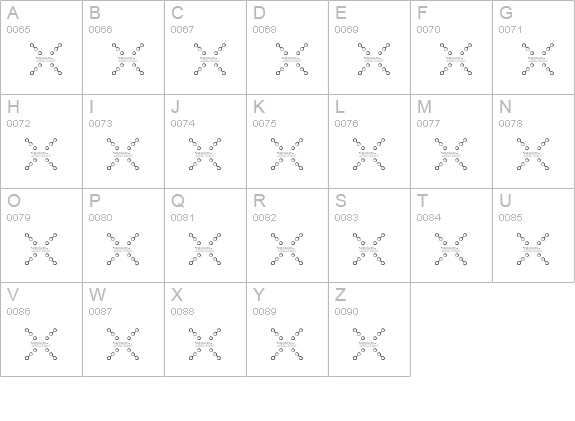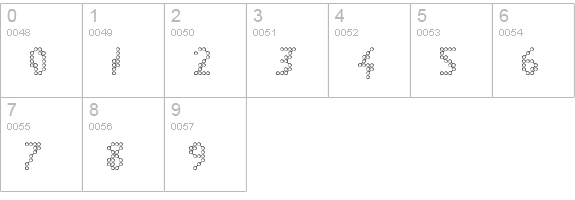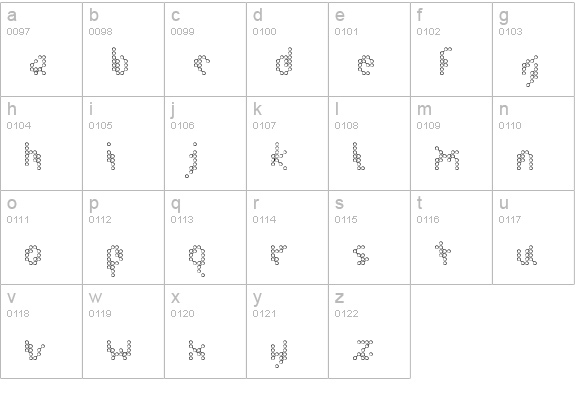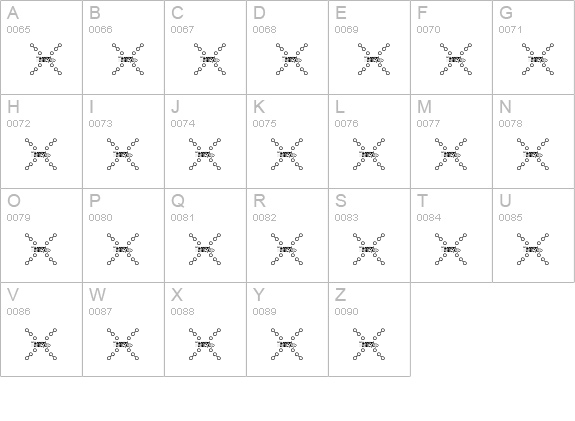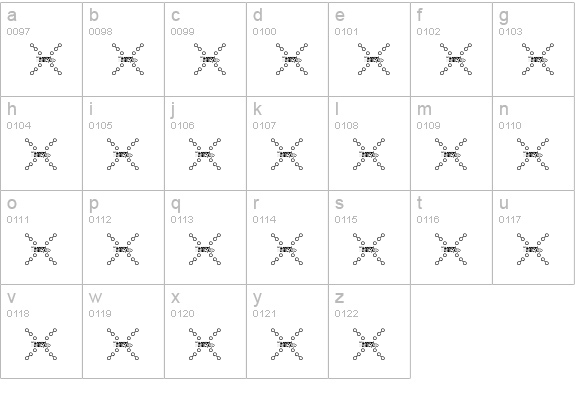
Introducing [.flak-prototype.], a modern and stylish font that exudes creativity and innovation. This font is perfect for adding a contemporary touch to your projects, whether it's for branding, advertising, or graphic design. With its unique and eye-catching design, [.flak-prototype.] is sure to make a statement. The best part? [.flak-prototype.] is completely free to download at FontsMarket.com. That's right, you can add this versatile font to your collection without spending a dime. Don't miss out on the opportunity to enhance your designs with this sleek and sophisticated typeface. Download [.flak-prototype.] today and take your projects to the next level!